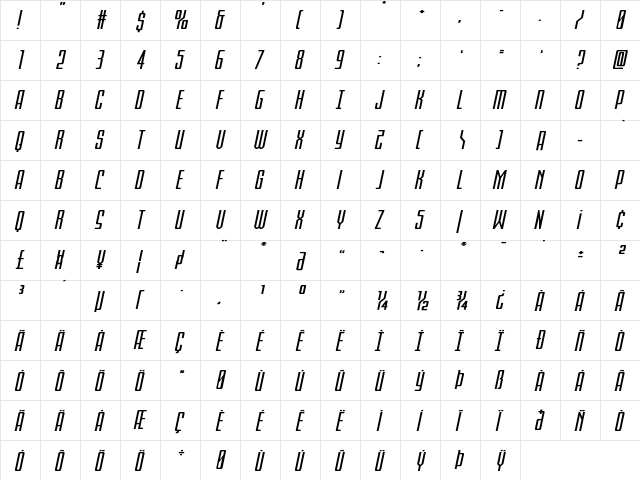
Blue Cobra Extra-Expanded Ital Regular
Design Context for Blue Cobra Extra-Expanded Ital Typeface
Blue Cobra Extra-Expanded Ital offers clean, dependable letterforms without strong stylistic allegiance, making it a practical choice for designers who need flexibility.
Pro Tip: Use Blue Cobra Extra-Expanded Ital in both headline and body roles to test its range before committing to a single application.